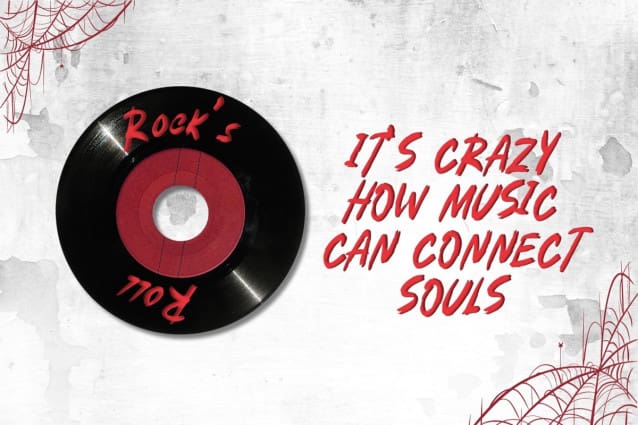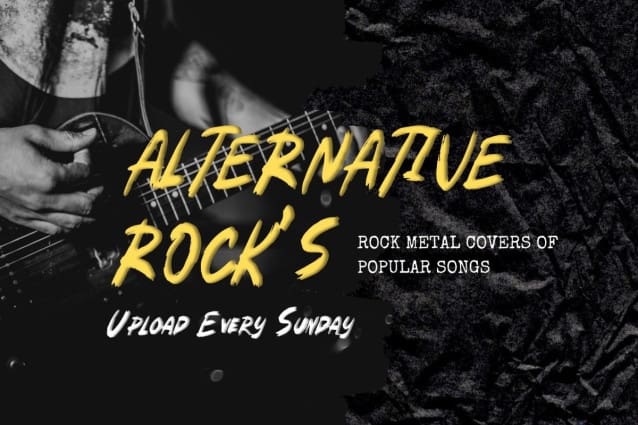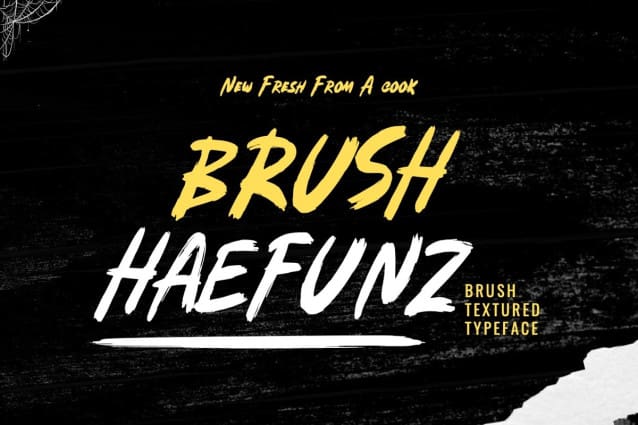
Haefunz Brush Font
Haefunz Brush Font is a Rough Display Brush Font featuring a natural and classy style with clear, dramatic movement. Haefunz Brush Font is great for your next creative project such as logos, printed quotes, invitations, cards, product packaging, headers, Logotypes, Letterheads, Posters, watermark on photography, invitations, advertisements, product designs, stationery, wedding designs, labels, product packaging, special events, or anything that needs bold typography.